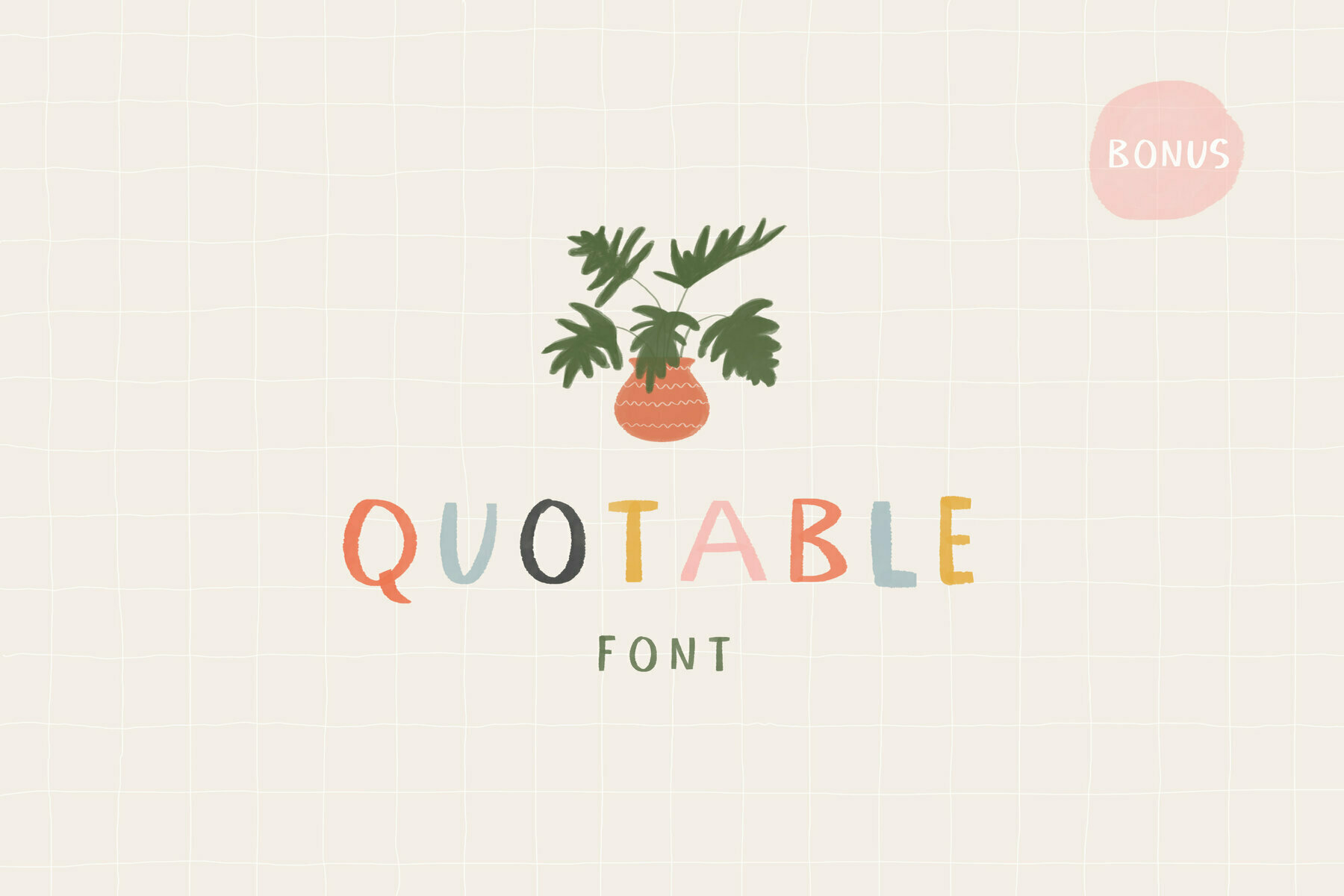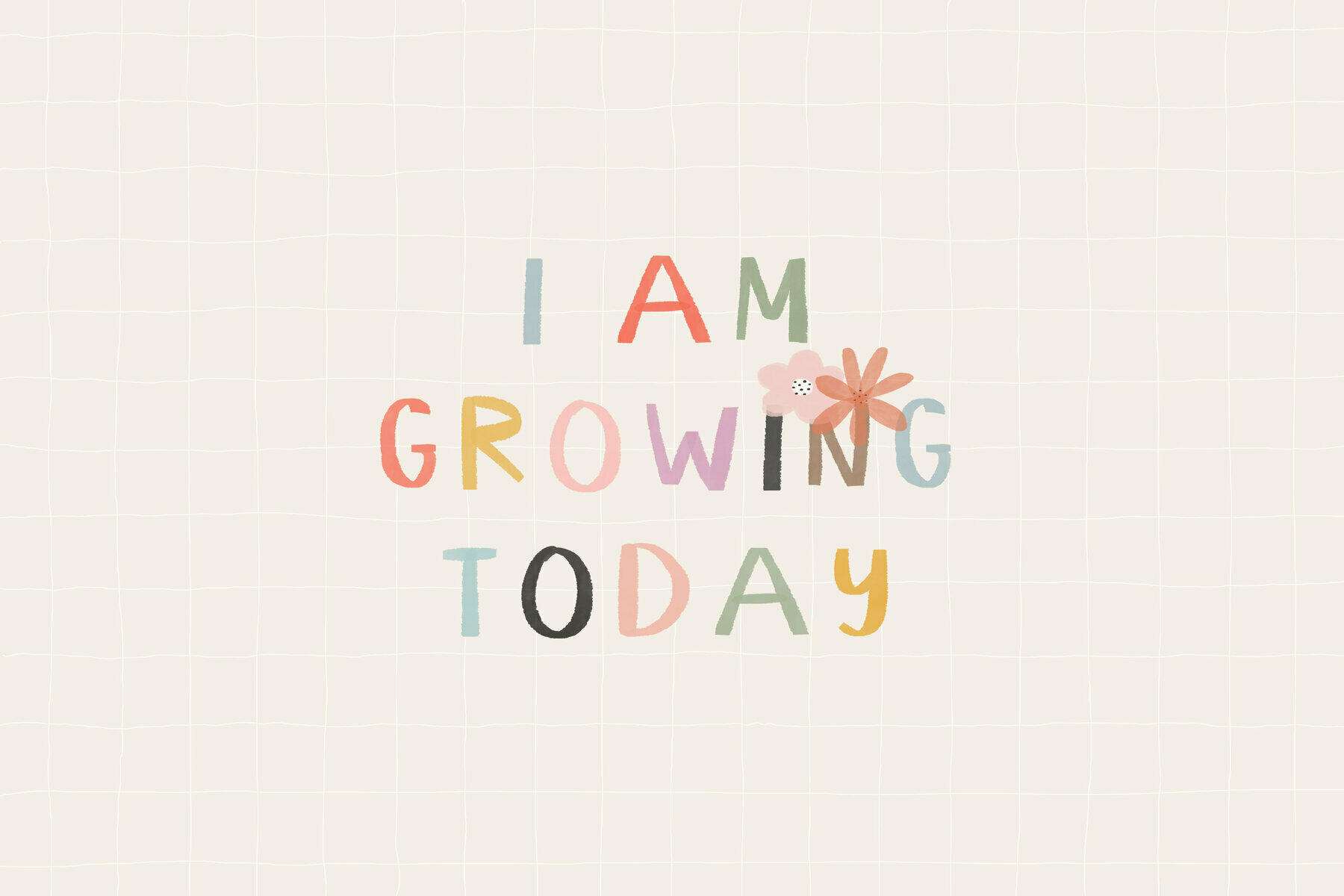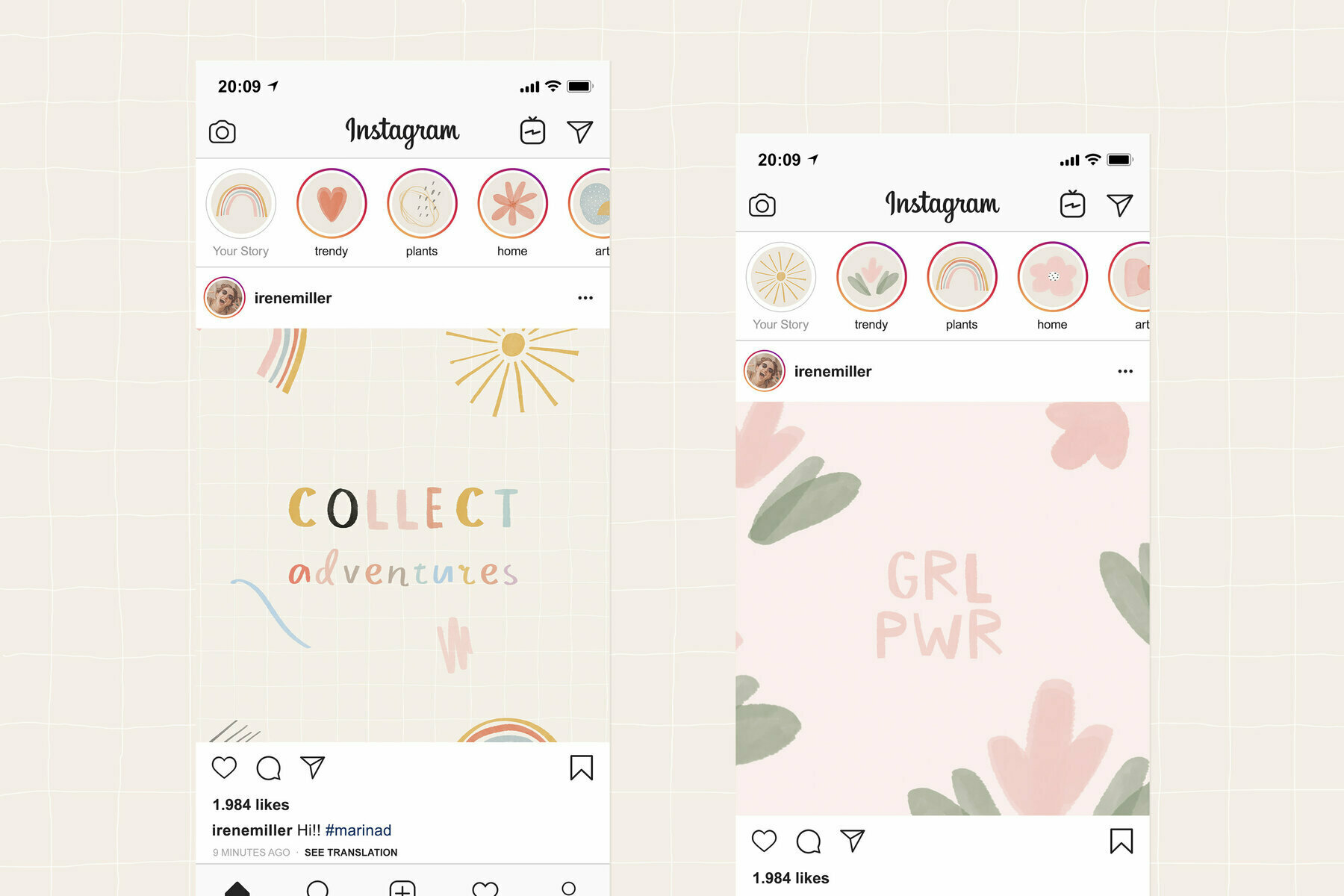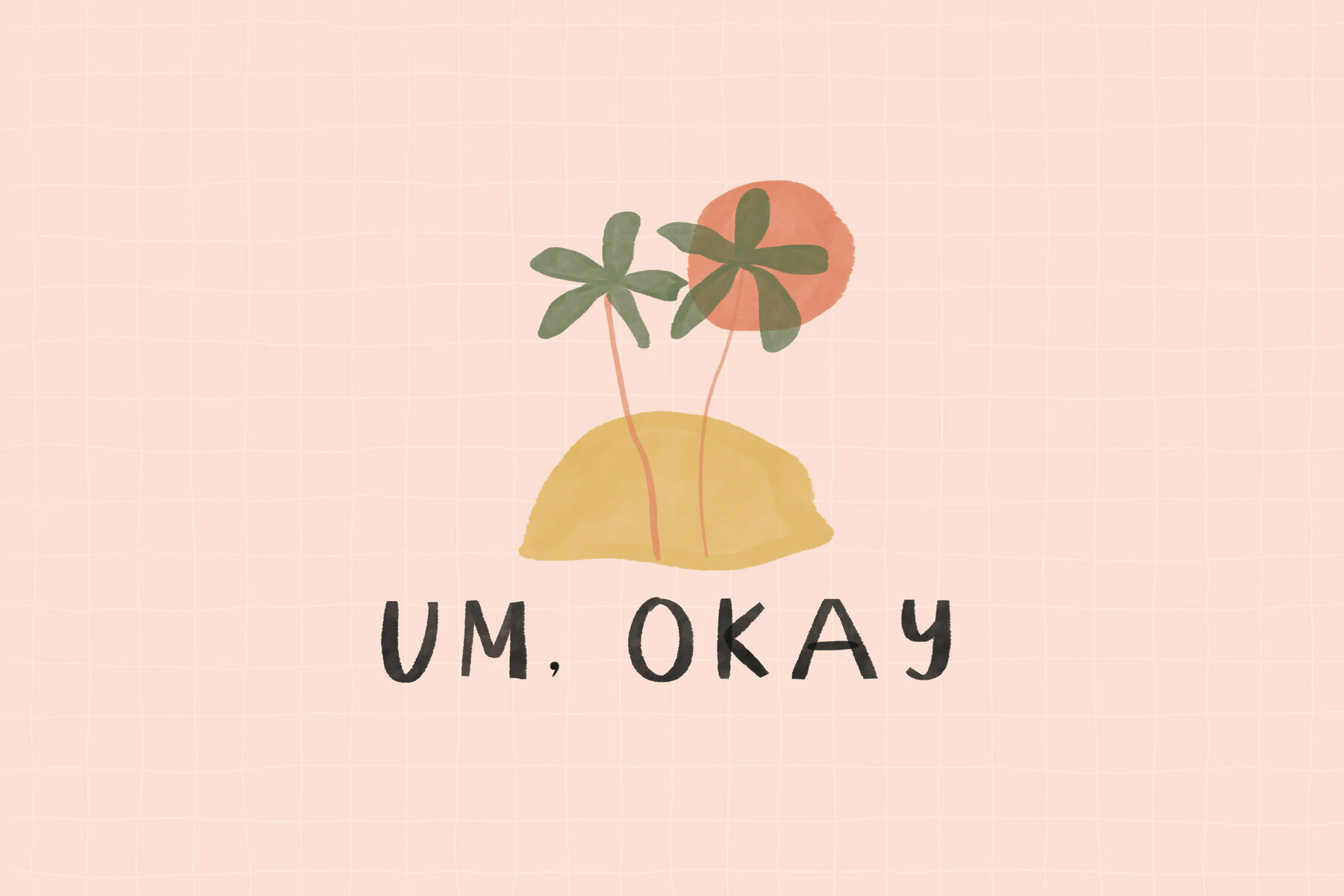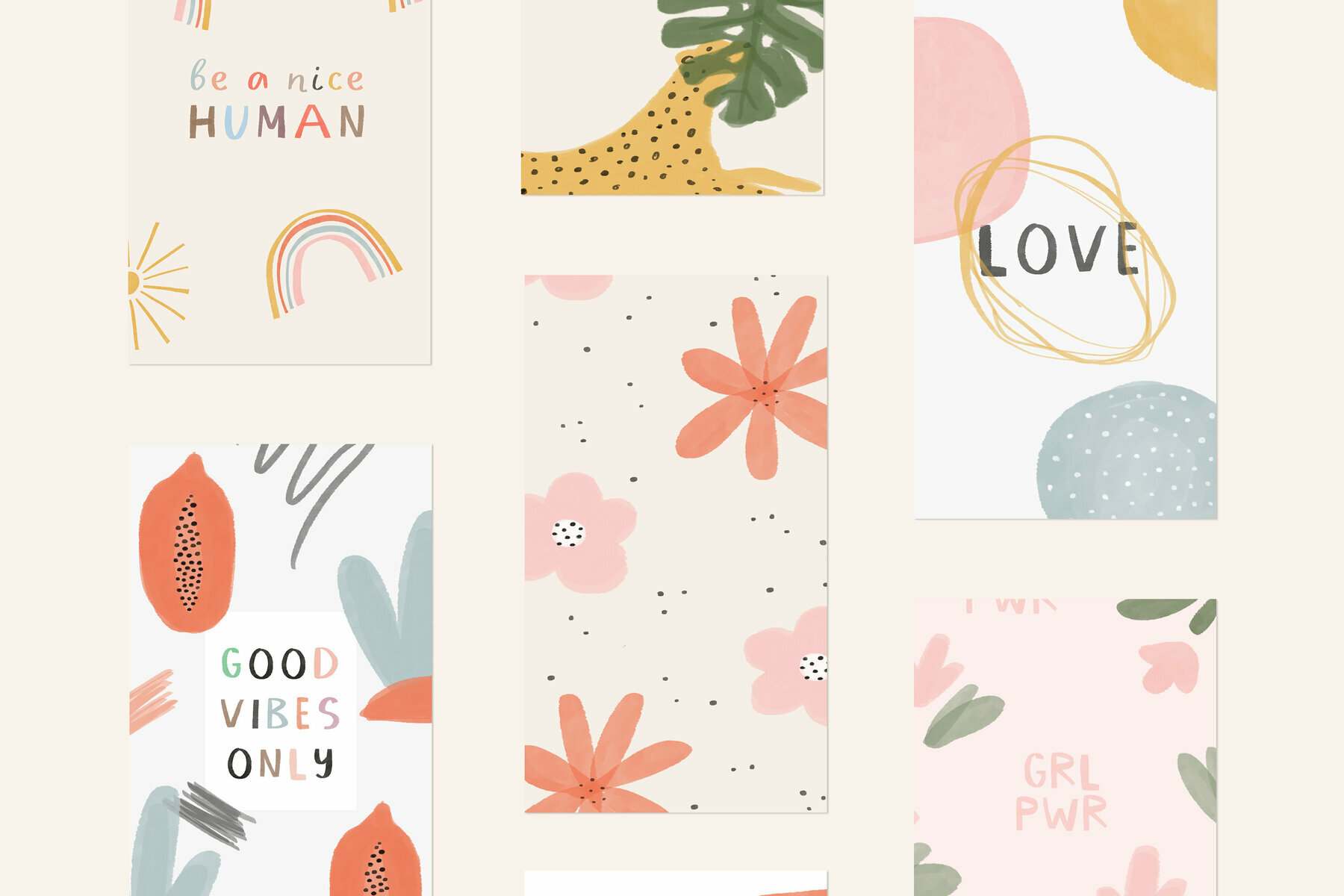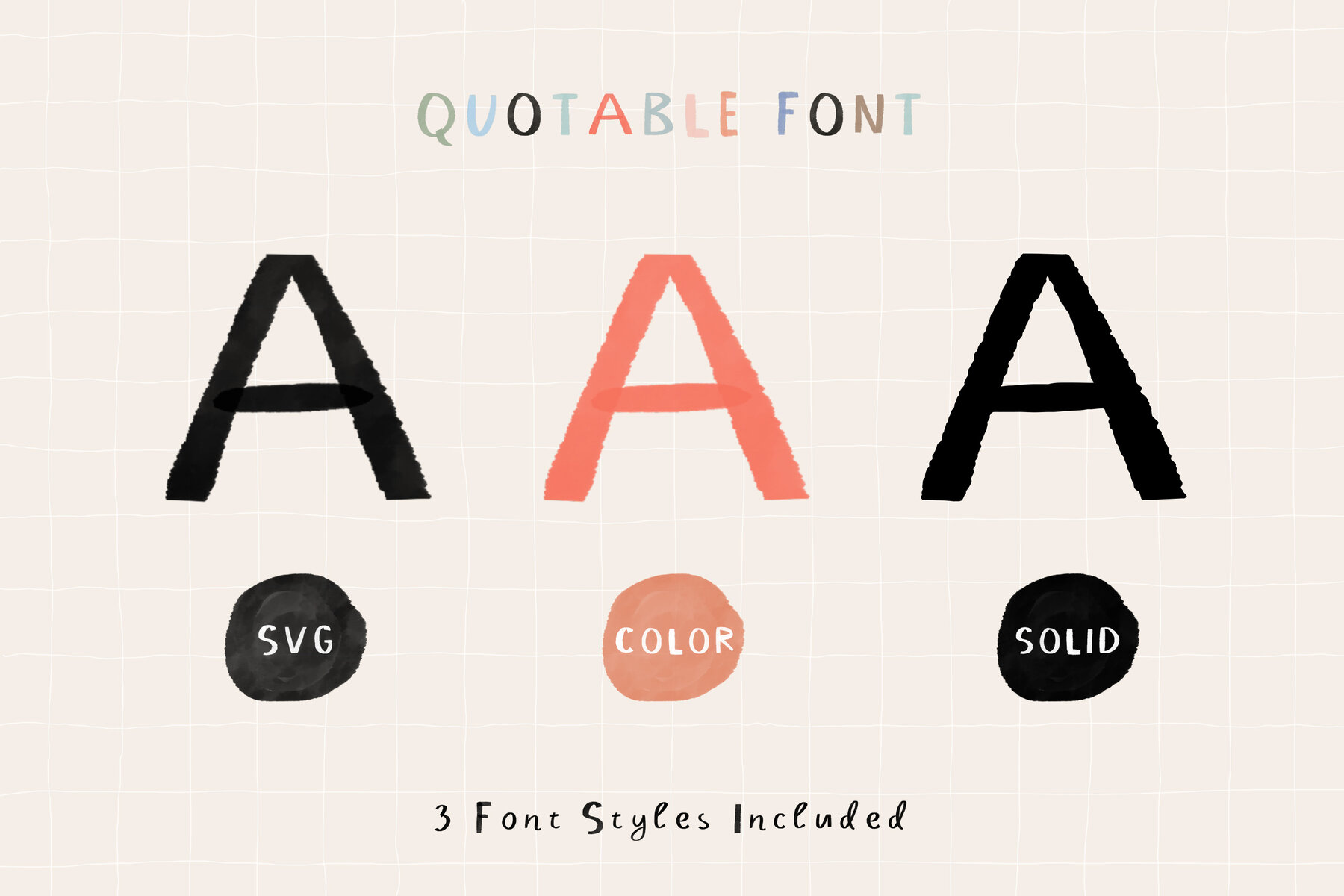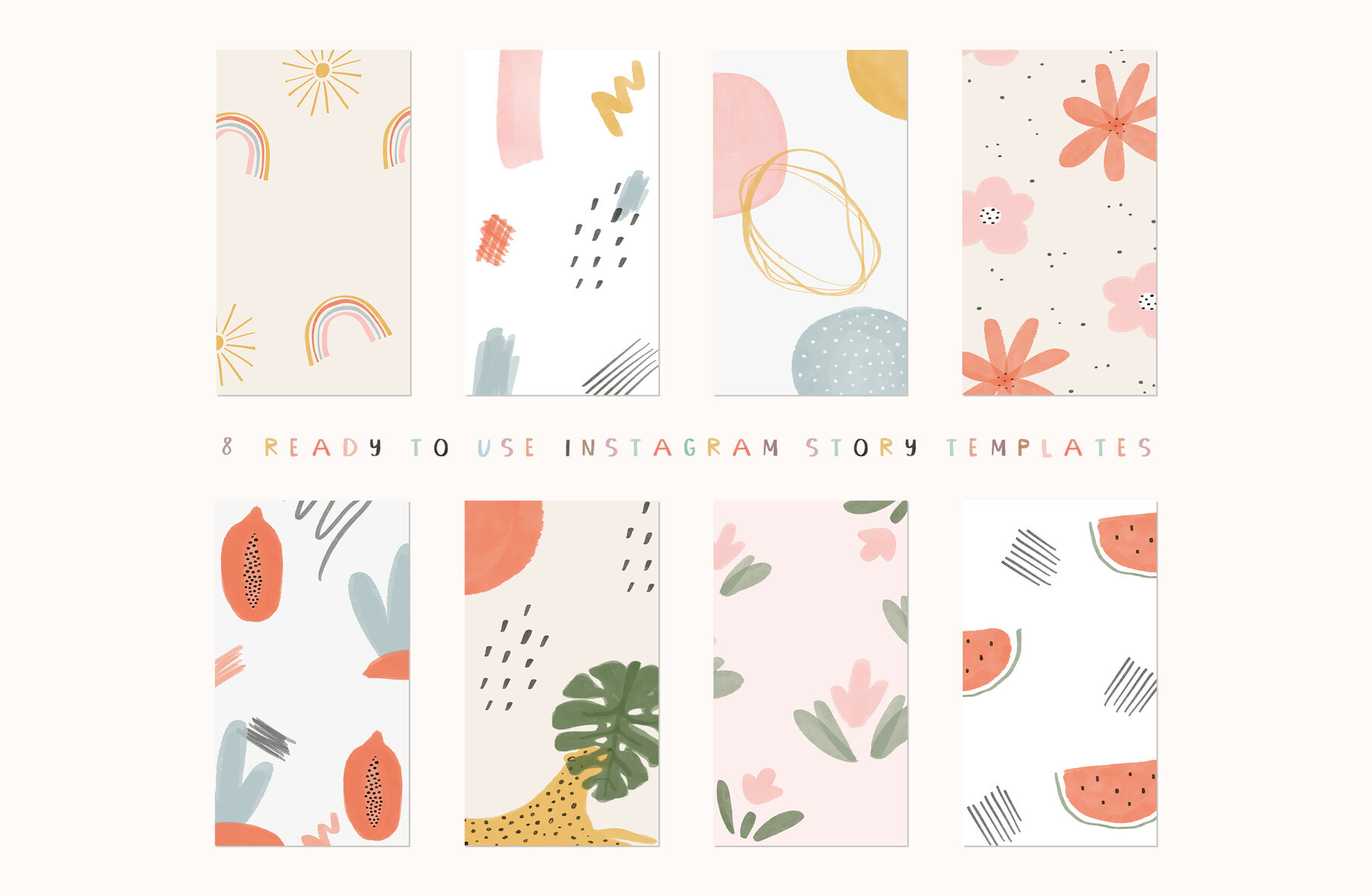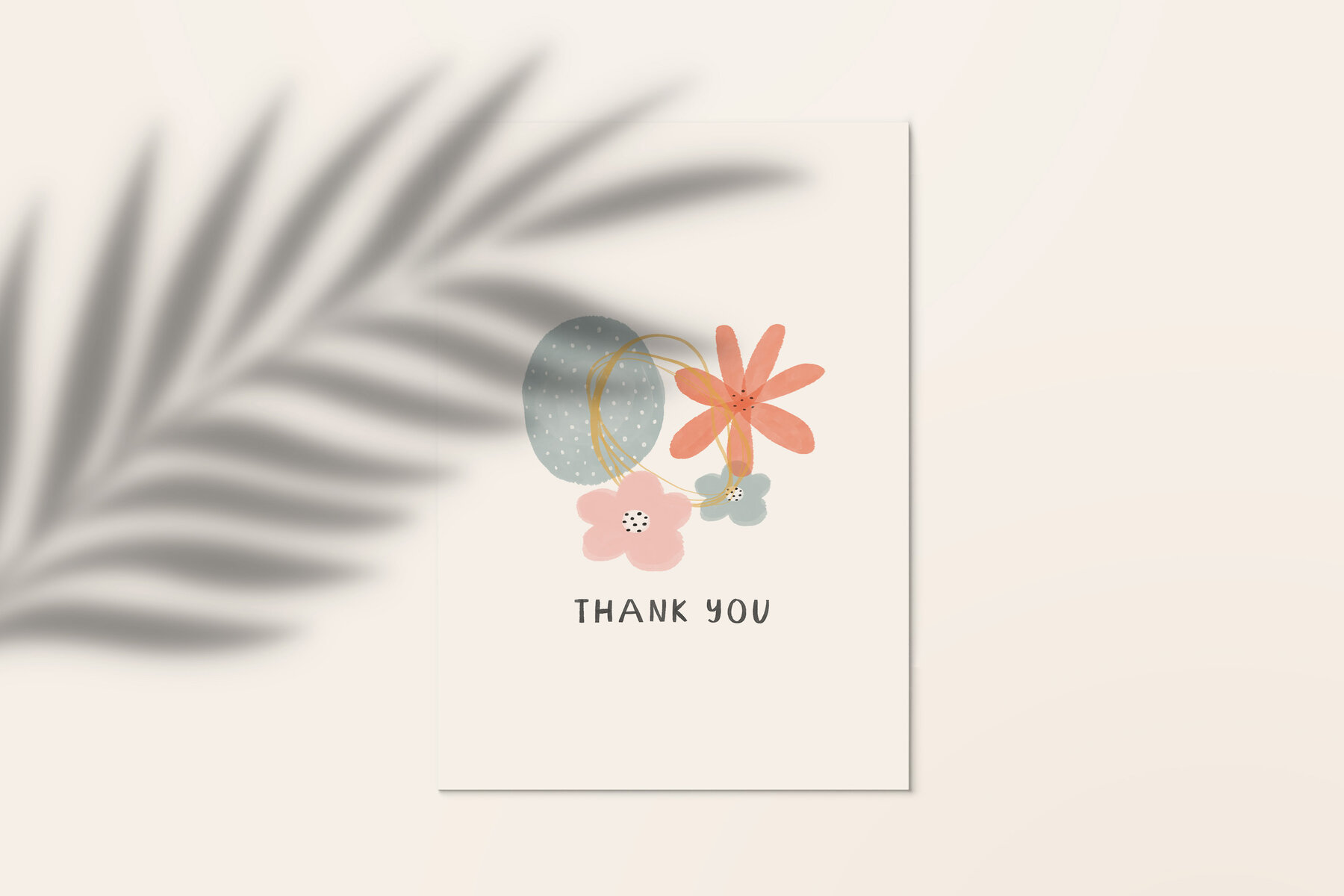
Quotable Colour Font
Quotable is a collection of display sans serif typeface with illustrations. Perfect for branding, social media templates, stories, cards, posters and other designs.
- Quotable SVG Color Font: upper and lowercase characters, number 0-9 and a range of punctuation and symbols (OTF only);
- Quotable SVG Watercolor Font: upper and lowercase characters, number 0-9 and a range of punctuation and symbols (OTF only);
- Quotable Vector Solid Font: upper and lowercase characters, number 0-9 and a range of punctuation and symbols (OTF only);
All the letters of Quotable SVG are raster bitmap font - each letter has been painted a dozen of times.